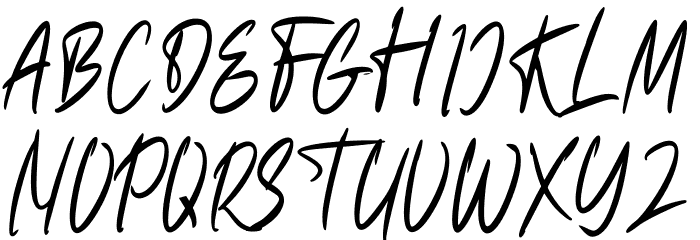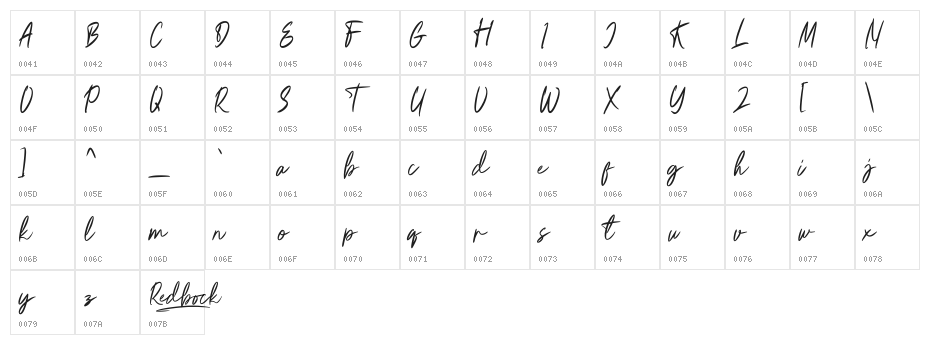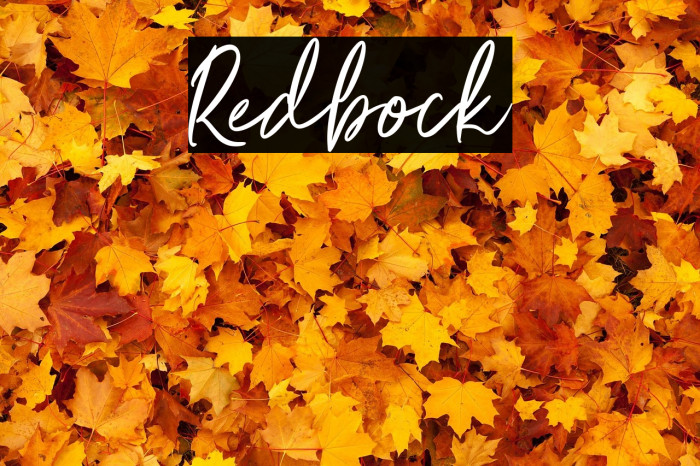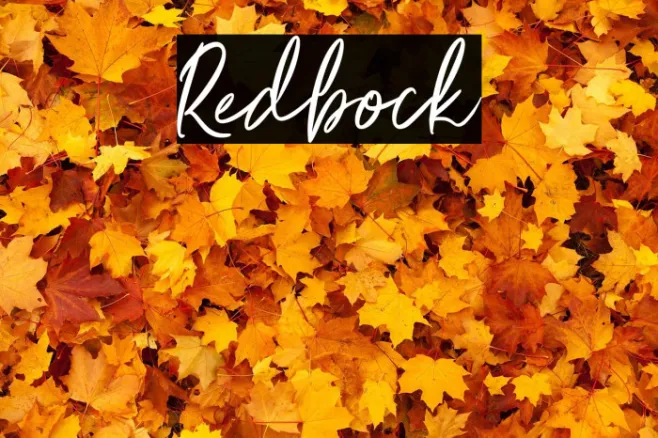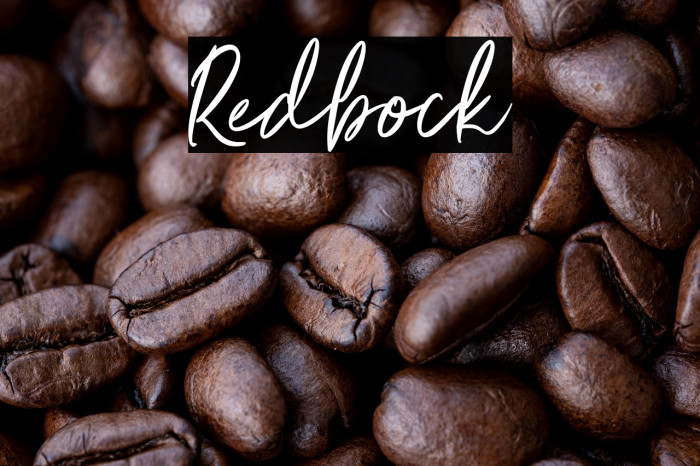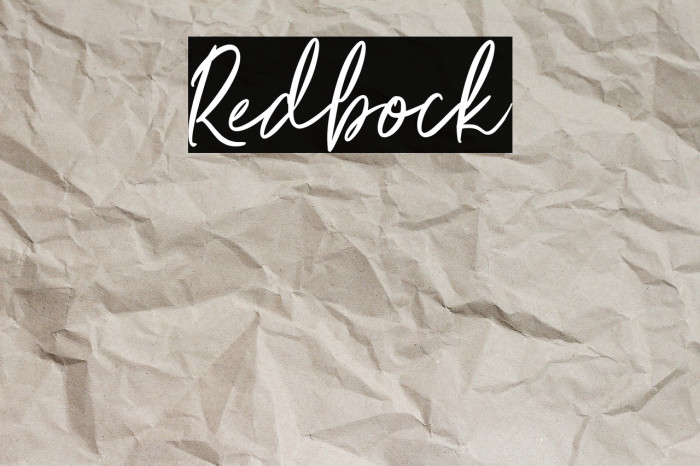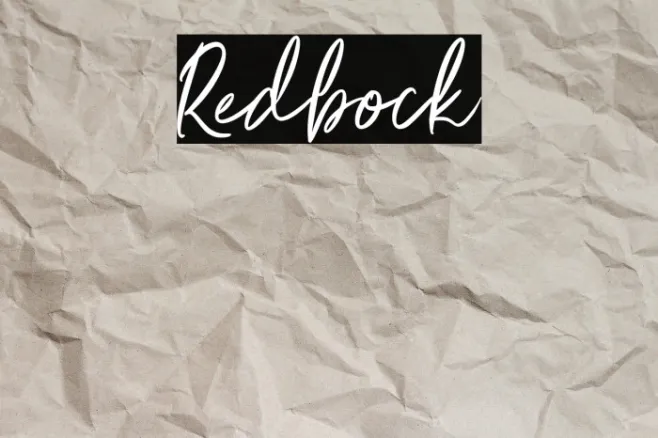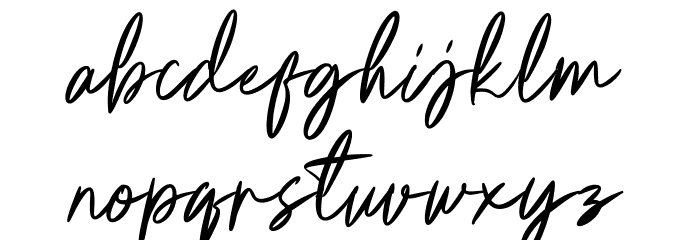
Redbock Font
Redbock Description
This font features a dynamic and fluid script style, characterized by its elegant, flowing lines and slightly slanted characters. The uppercase letters are bold and expressive, with a distinct flair that adds a touch of sophistication. The lowercase letters maintain a consistent rhythm, enhancing readability while preserving the font's artistic appeal. The numbers and special characters are crafted with the same attention to detail, ensuring a cohesive look across all text elements. This font's design is both modern and timeless, making it versatile for various applications.
| Proposed Projects | Ideal for wedding invitations, branding, logo design, and elegant stationery. |